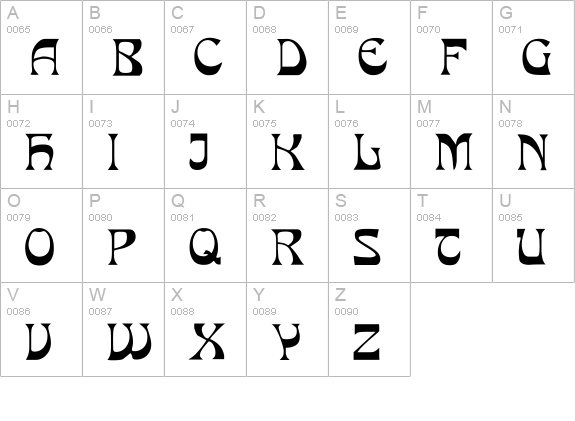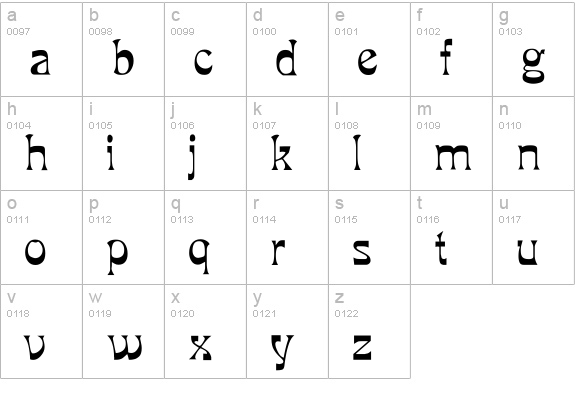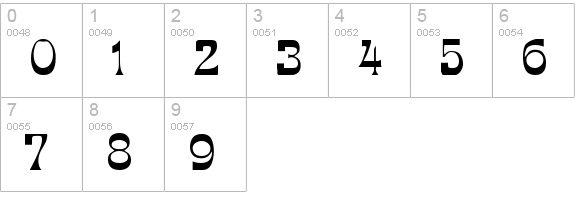
Yes:SongOfSeven Font Details
Yes:SongOfSeven is a captivating and elegant font that exudes a sense of sophistication and creativity. With its unique design and artistic flair, this font is perfect for adding a touch of style to any project. The sleek lines and curves of Yes:SongOfSeven make it a versatile choice for a wide range of design applications, from branding to editorial design. What's more, Yes:SongOfSeven is available for free download at FontsMarket.com, making it easily accessible for designers and creatives looking to elevate their work with a distinctive and eye-catching font. Whether you're working on a logo, poster, website, or any other design project, Yes:SongOfSeven is sure to make a lasting impression with its timeless appeal and modern aesthetic. Elevate your design projects with Yes:SongOfSeven today!